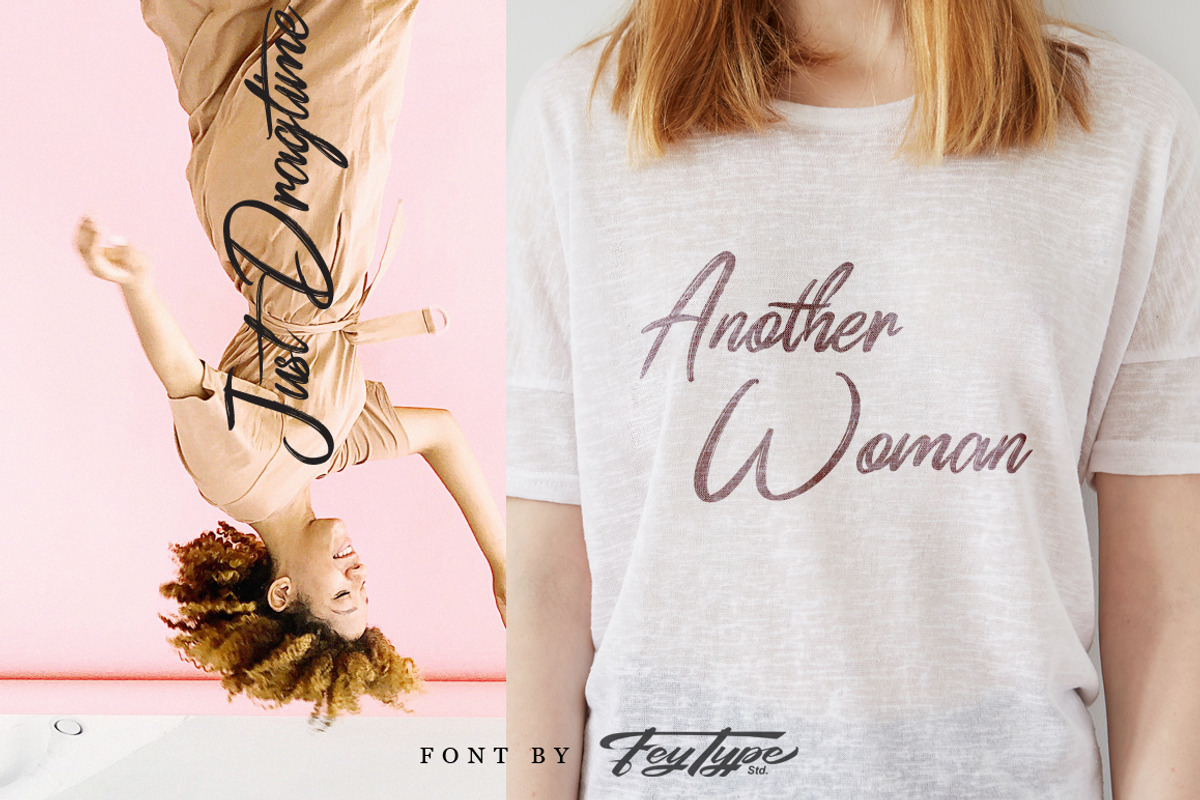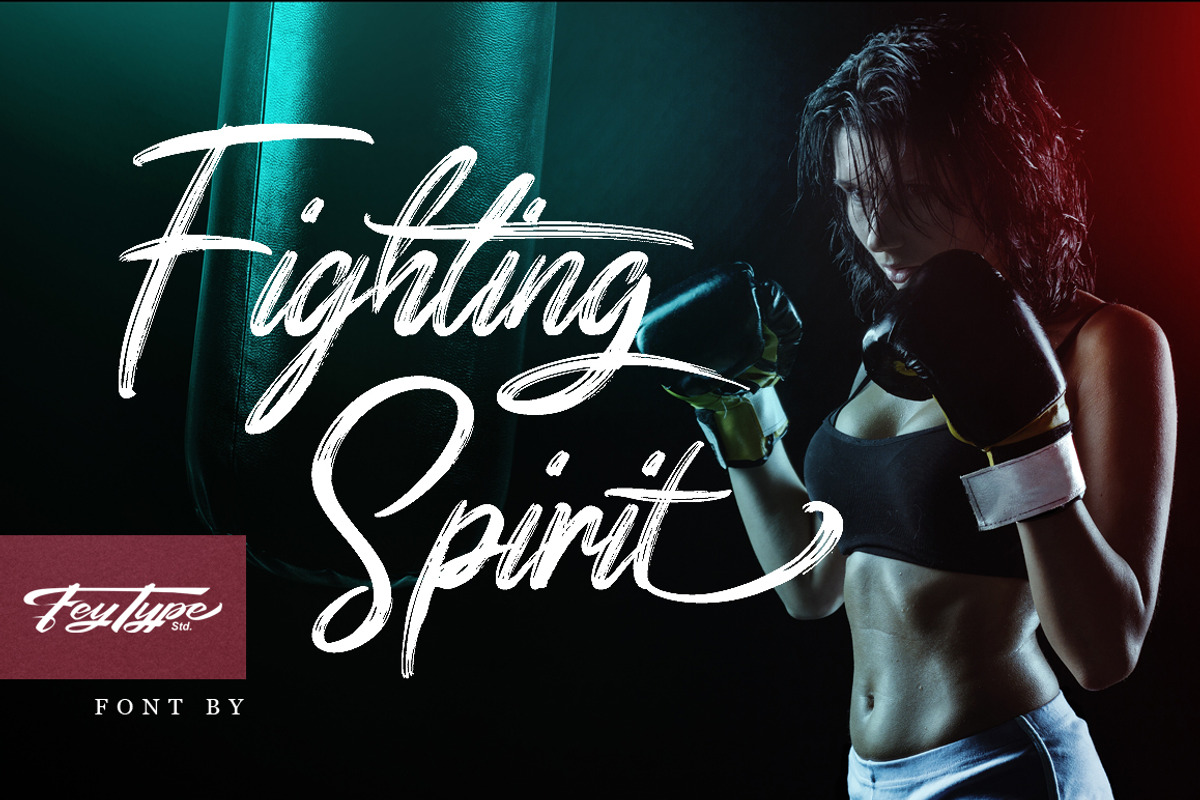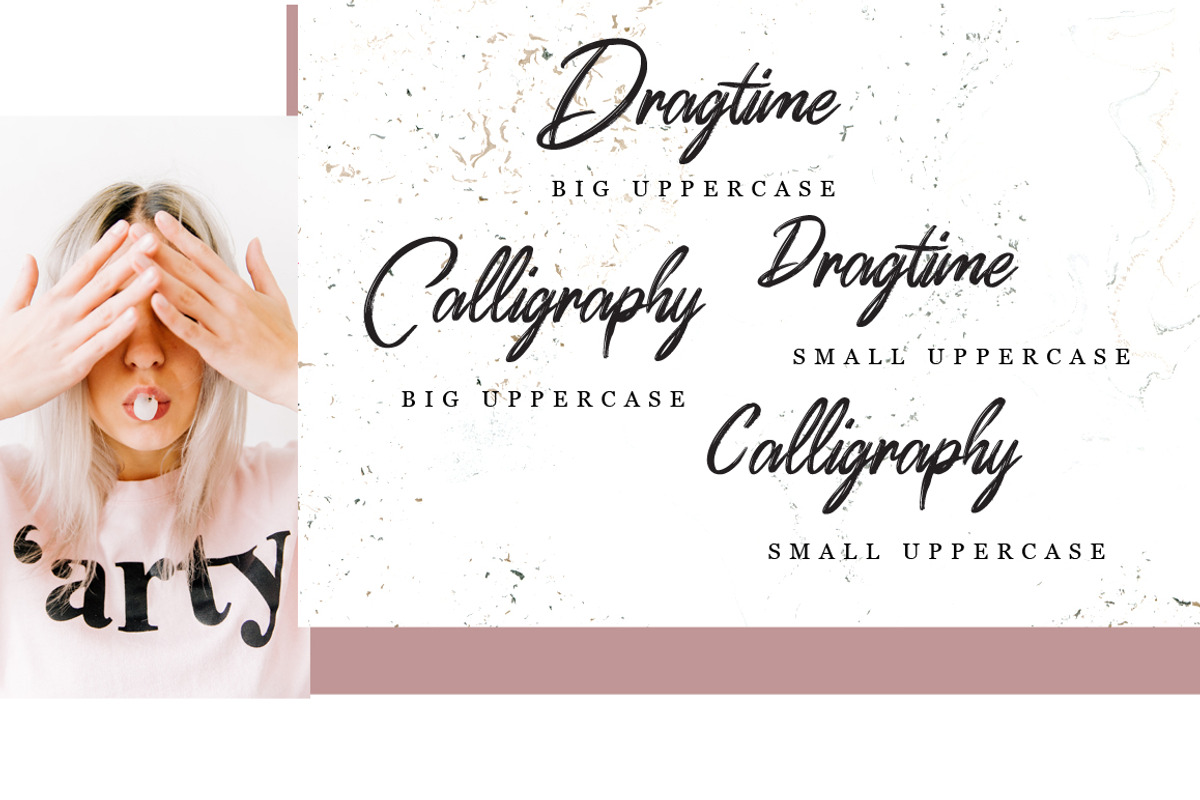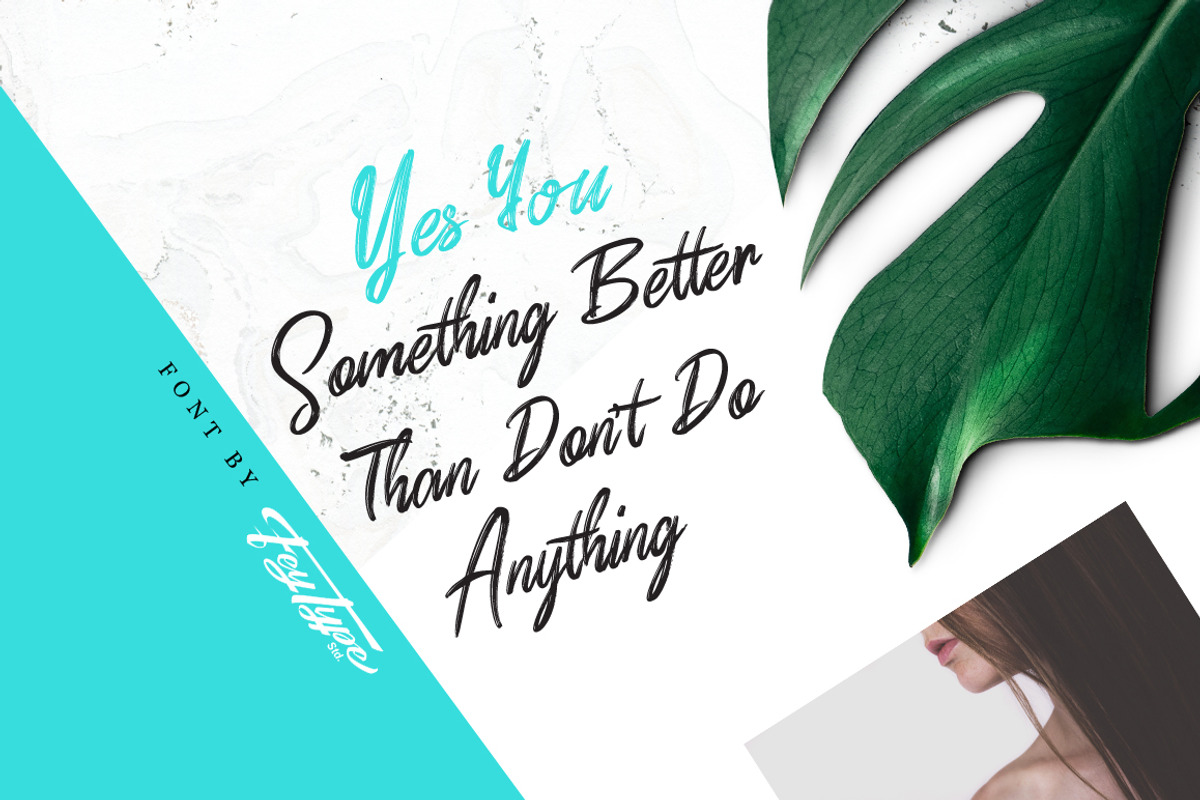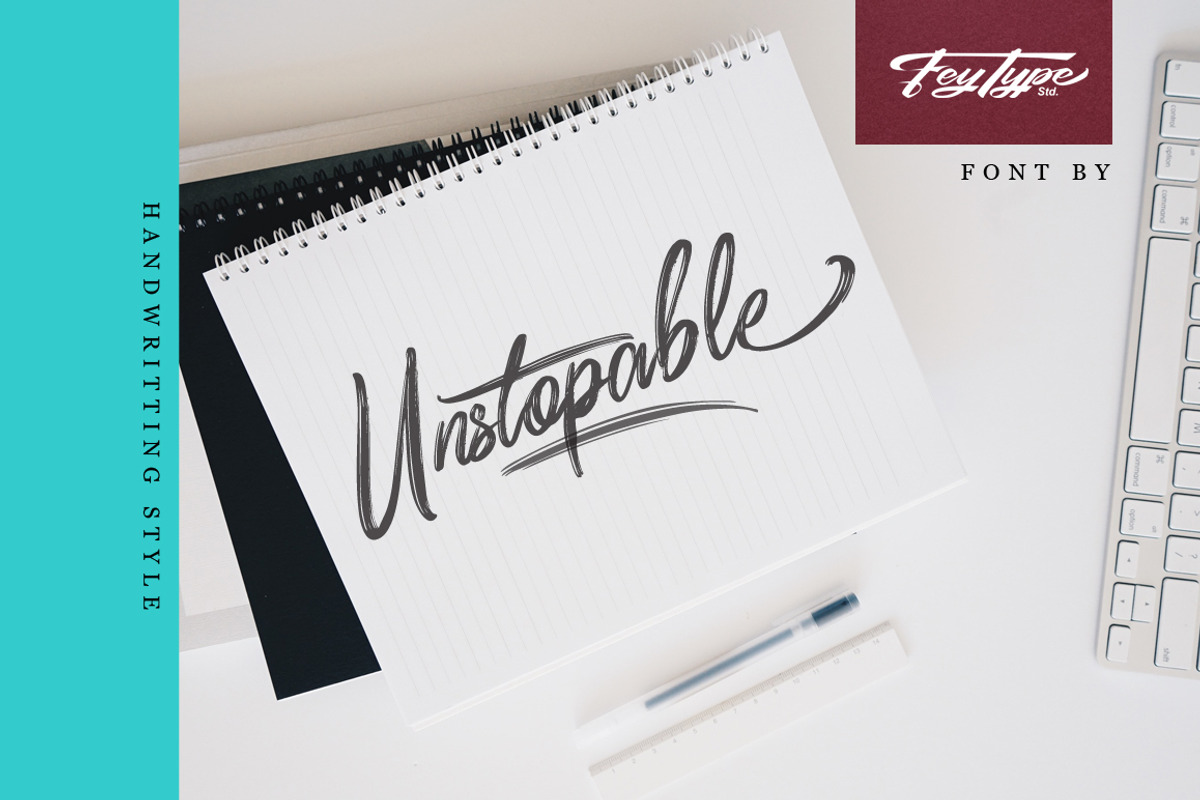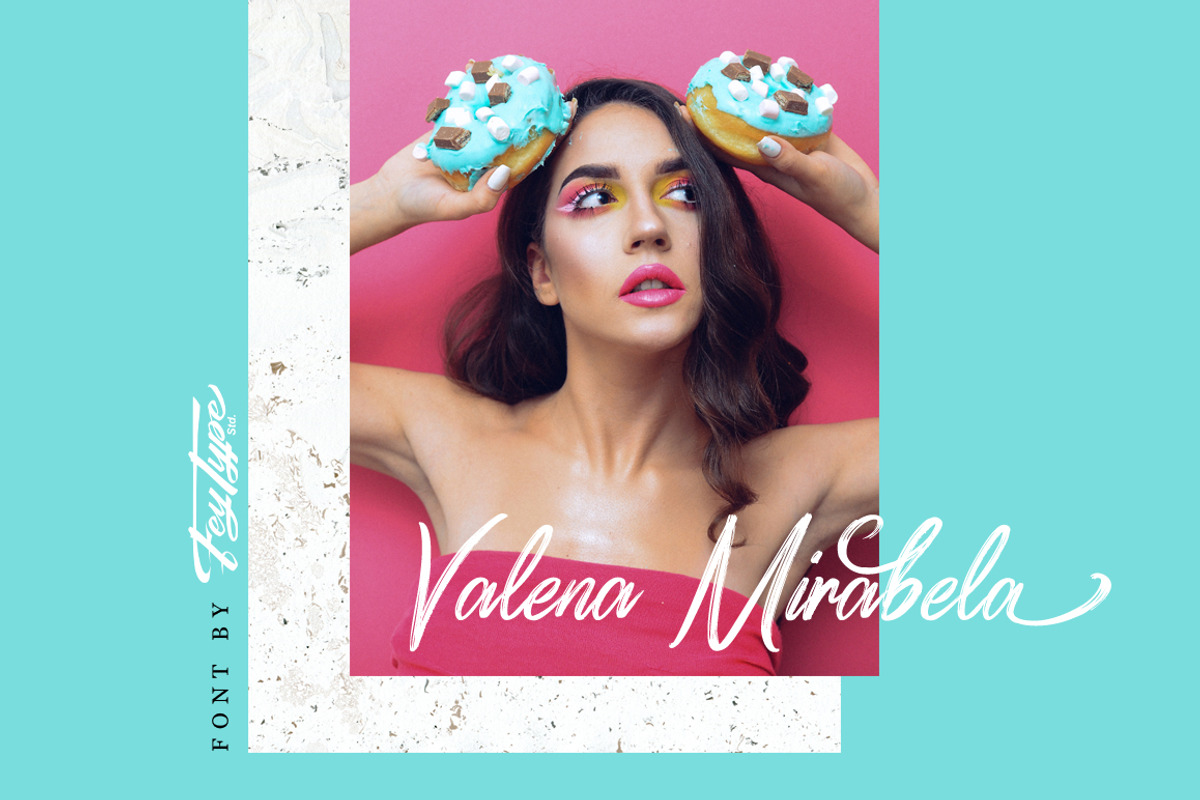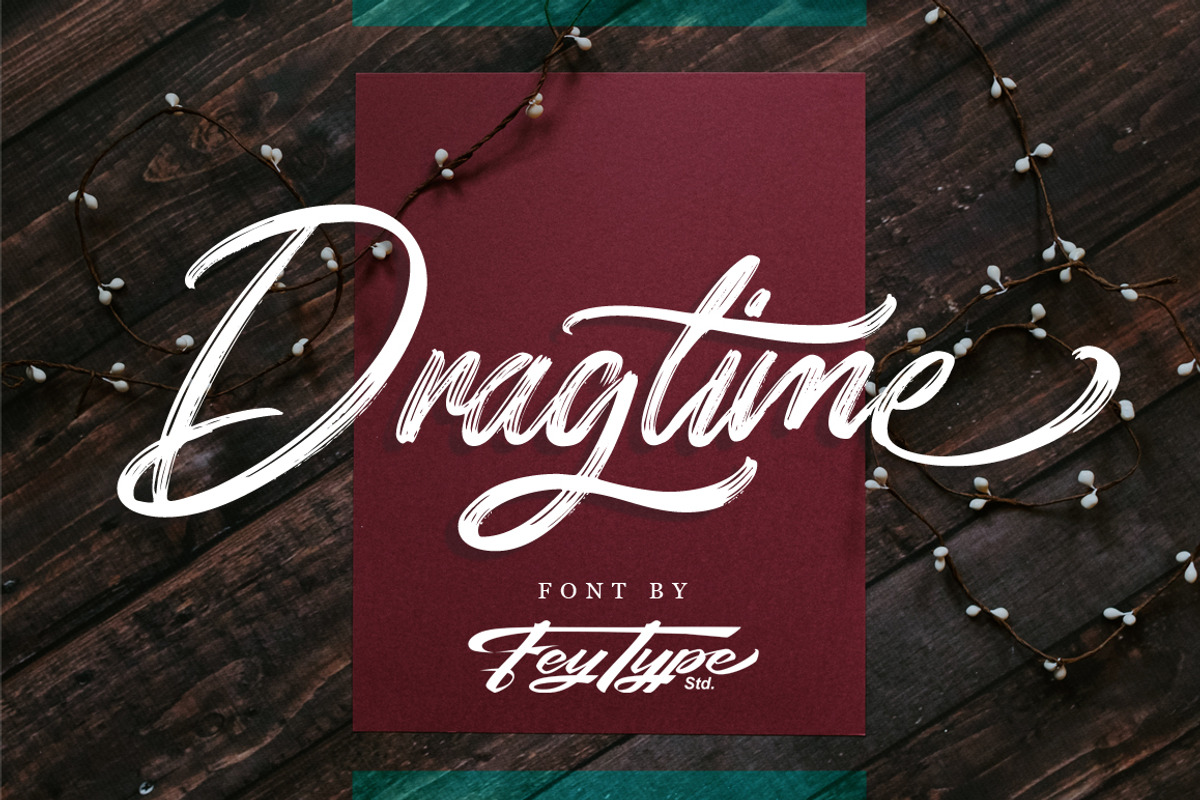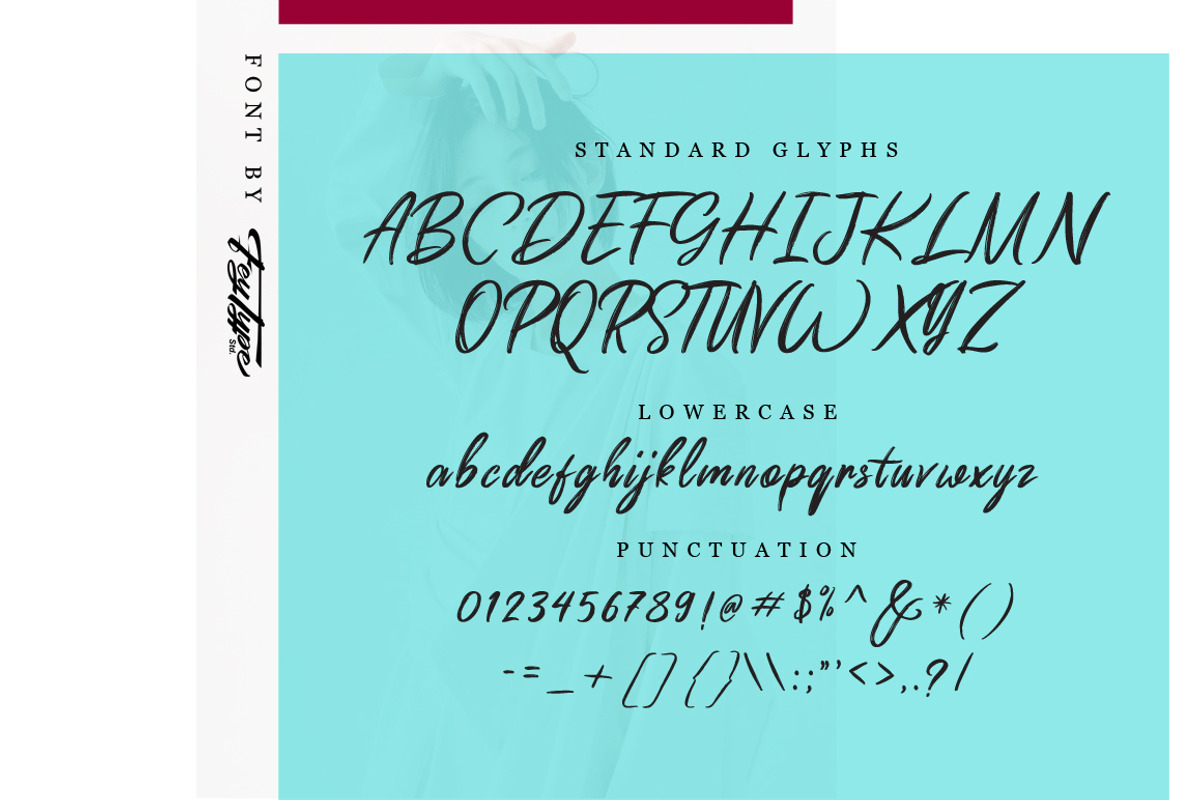
Dragtime - Handwritting Script Font
Dragtime is handwritten script font with signature style. Suitable for design, element design, wedding, event, t-shirt, logo, badges, sticker, and awesome work, etc...
Multilanguage Support: ÀÁÂÃÄÅÆÇÈÉÊËÌÍÎÏÐÑÒÓÔÕÖØÙÚÛÜÝßàáâãäåæçèéêëìíîïðñòóôõöøùúûüýÿ
Multilanguage Support